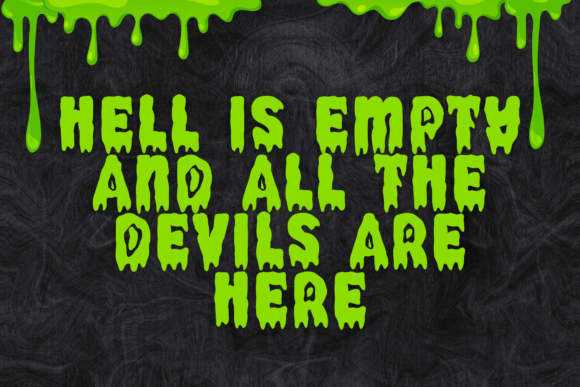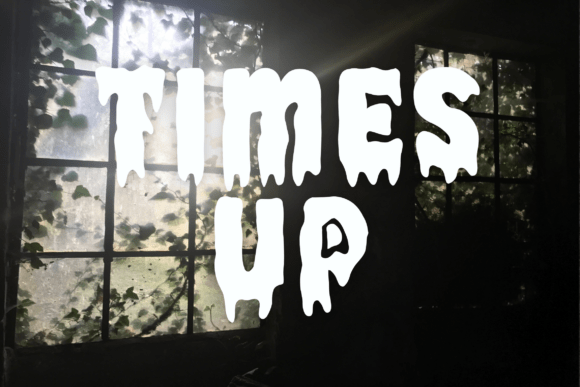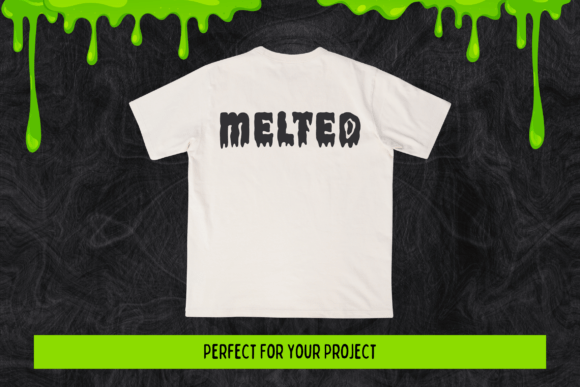
Introduction to Quirky Melted Font
Quirky Melted is a fun and slightly spooky display font with gooey, melting letterforms.
This font adds a lighthearted twist to eerie designs, making it perfect for Halloween events, creepy-cute branding, kids’ spooky crafts, and playful seasonal packaging Its quirky drip style strikes a balance between fun and fright.
Key Features of Quirky Melted Font
Why Choose Quirky Melted Font?
Quirky Melted Font offers exceptional quality and versatility, making it a valuable addition to your design toolkit. Whether you’re creating for personal projects or commercial use, Quirky Melted Font delivers professional results.